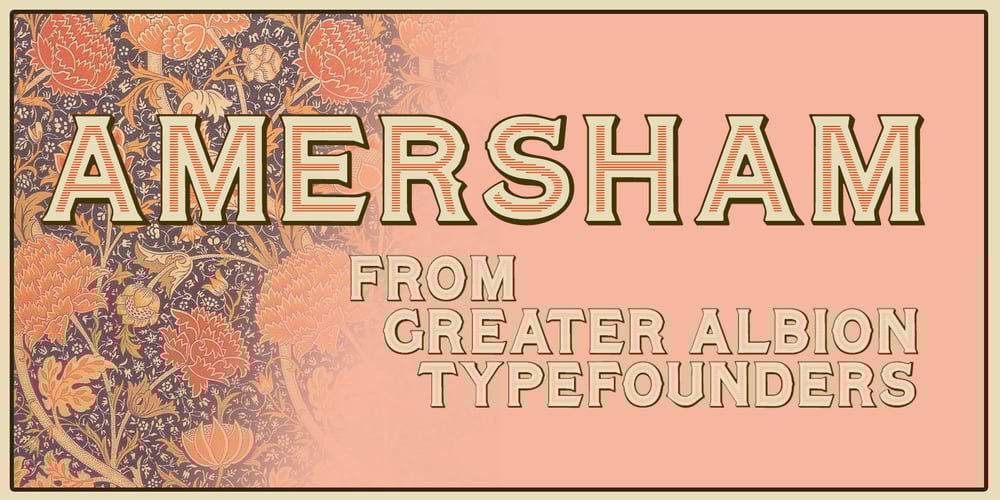
Amersham Font Family was designed by Paul James Lloyd and published by Greater Albion Typefounders. Amersham contains 3 styles and family package options. Amersham is a family of three copperplate display roman typefaces inspired by traditional sign writing techniques. The family consists of three typefaces which can also be overlayed to achieve multiple coloured typography. Use the Amersham family for headings, posters with a period theme and signage with flair. Just the thing for a retro-CD cover as well.